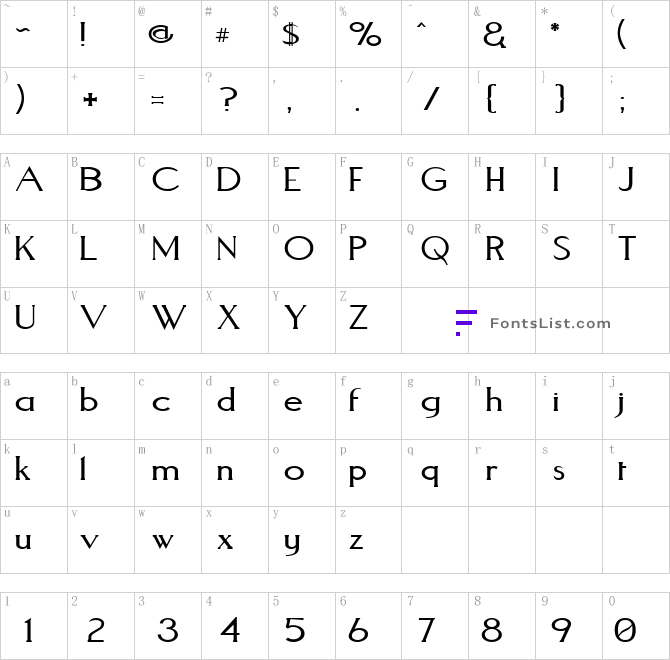
- Font Name:Aquaduct (full set)
Aquaduct-full-set-Plain.ttf is a very beautiful artistic font, Aquaduct-full-set-Plain.ttf is widely used in the design and printing of various books and pictures,Aquaduct-full-set-Plain.ttf has a strong visual impact,Aquaduct-full-set-Plain.ttf is a commonly used font in newspapers, magazines and books, and is used in posters, e-commerce Poster design, store design, logo design, font design and other fields.Aquaduct-full-set-Plain.